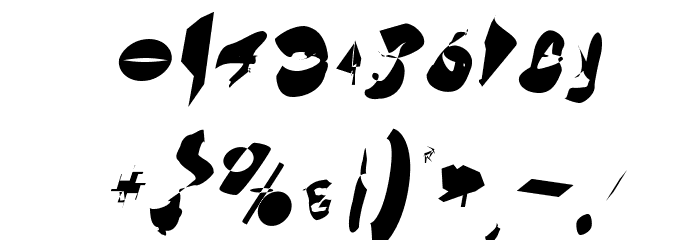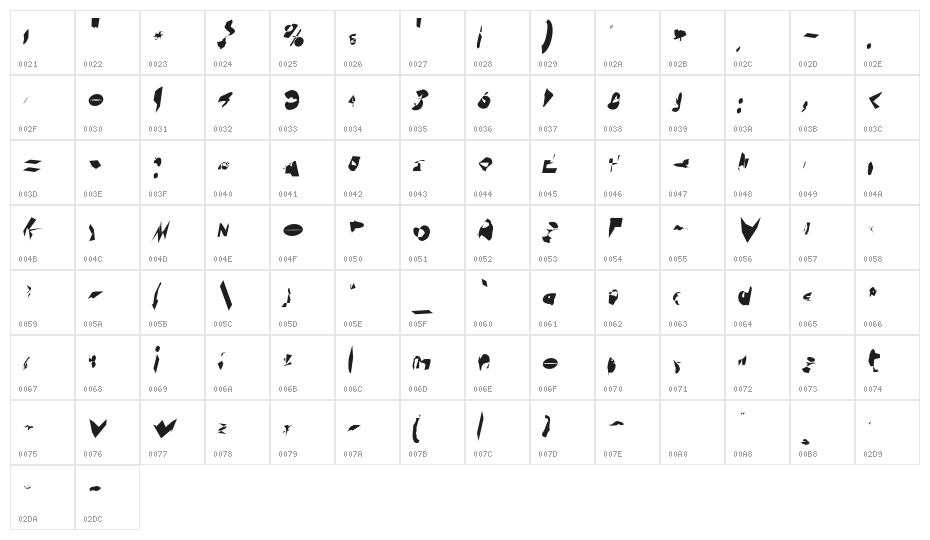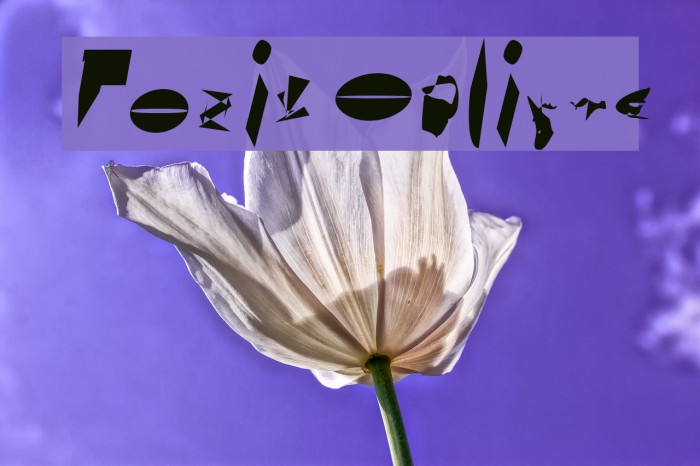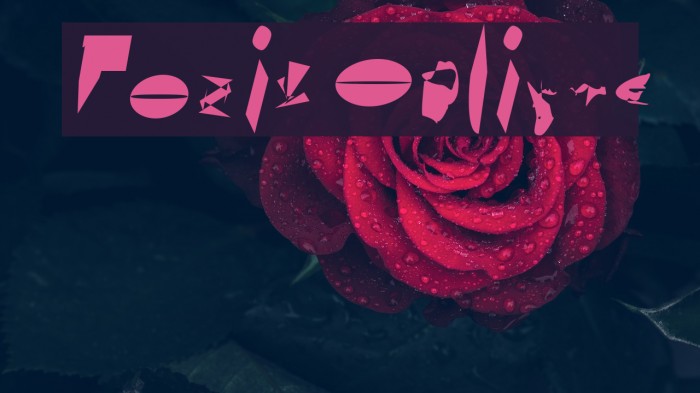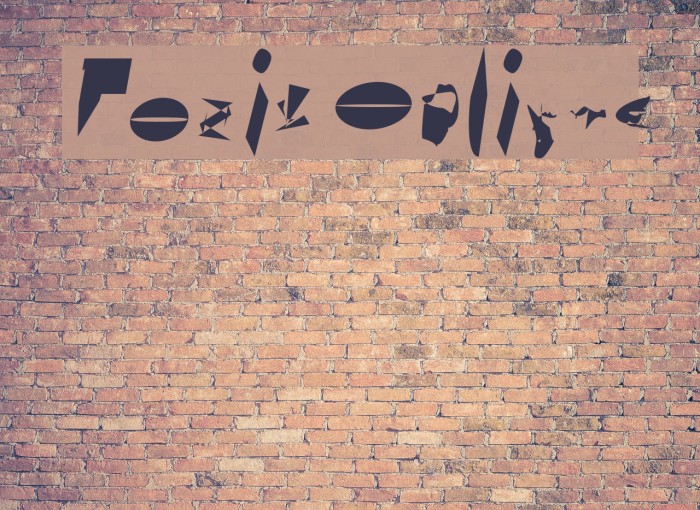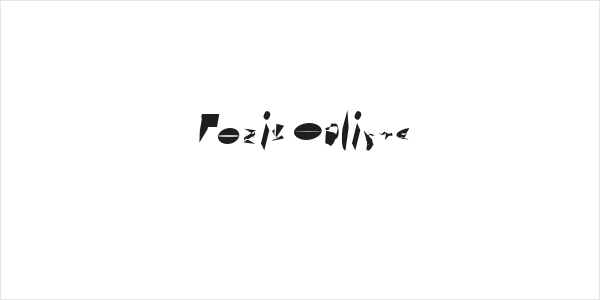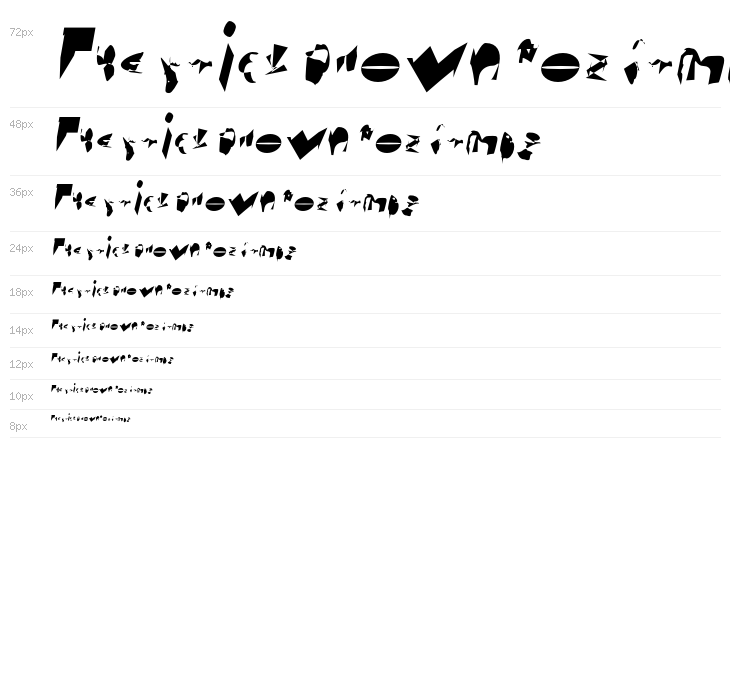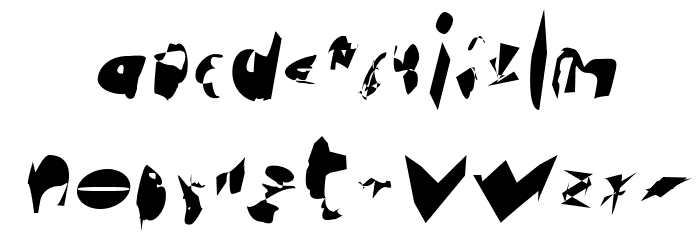
Toxik Oblique Font
Toxik Oblique Description
This font exhibits a highly abstract and fragmented style, characterized by sharp angles and irregular shapes. Each character appears to be intentionally distorted, creating a chaotic and edgy aesthetic. The letters are bold and have a strong presence, with varying stroke widths that add to the dynamic appearance. The overall design is unconventional and artistic, making it suitable for projects that require a distinct and avant-garde look. The font's unique style is reminiscent of graffiti or street art, with a rebellious and energetic vibe.
| Overall Style | Modern, Avant-Garde |
| Use Case | Logos, Posters, Album Covers |
| Proposed Projects | Ideal for album covers, streetwear branding, posters, and any creative project seeking an avant-garde or rebellious aesthetic. |